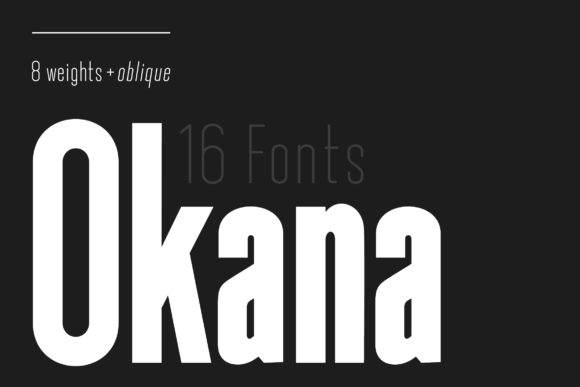
Brace yourself for a typographic revelation, font enthusiasts! Introducing the Okana Font Family, a groundbreaking collection of sans serif fonts that will redefine your design horizons.
Okana is not just a font; it's an experience. Its contemporary appearance, inspired by the clean lines and geometric precision of modern design, will elevate your projects to new heights of sophistication and style.
Okana's strength lies in its versatility. Whether you're crafting elegant logos, captivating headlines, or sleek web designs, this font family seamlessly adapts to your creative vision. Its crisp, legible letterforms ensure clarity and readability even at small sizes, making it a perfect choice for both print and digital media.
Let your imagination run wild with Okana's diverse range of weights and styles. From the delicate Hairline to the bold Black, each weight exudes its own unique personality, providing endless possibilities for creative expression. Combine different weights and styles to create striking contrasts and visual hierarchies that captivate your audience.
But Okana is more than just a collection of fonts; it's a gateway to a world of creativity. Its clean aesthetic and contemporary flair make it the perfect choice for designers, marketers, and creatives seeking to make a lasting impression.
So, embark on a typographic journey like no other with the Okana Font Family. Let its geometric beauty inspire your designs, elevate your projects, and leave a lasting impact on your audience.